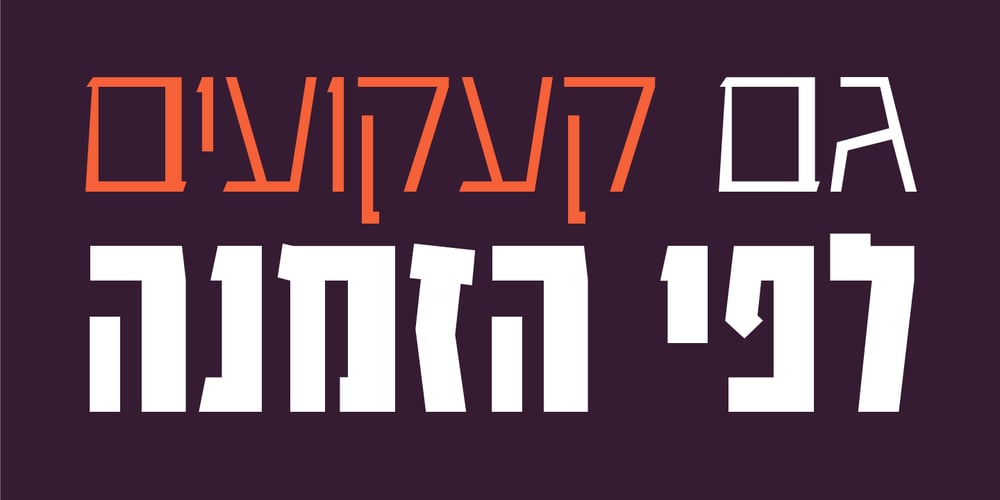
Enigma MF
Enigma MF font
Enigma MF Font Family was designed by Yigal Feurstein and published by Masterfont. Enigma MF contains 6 styles and family package options. A super family with great look for signage and titles that will stand out. Geometric forms with sharp contrast, make this elegant font family a great companion, indoor and outdoor. Great for logos as well as tag lines.